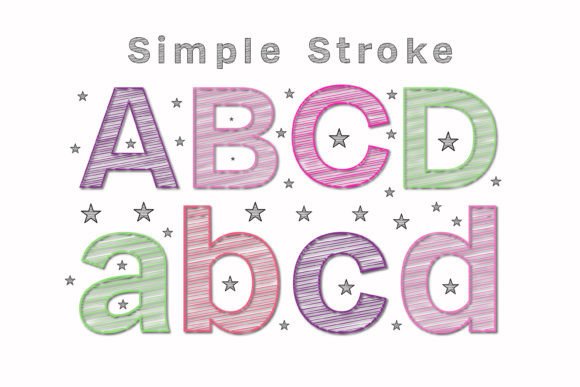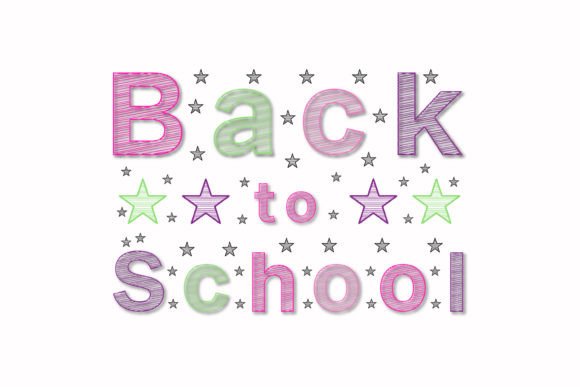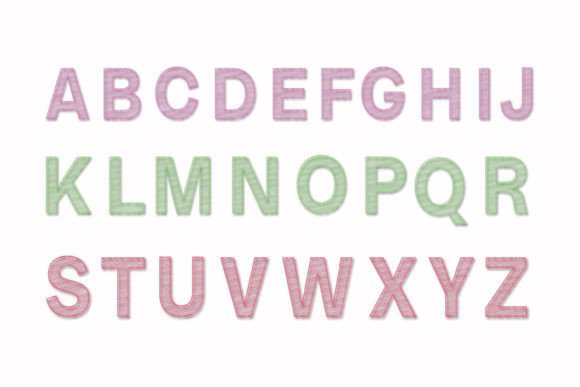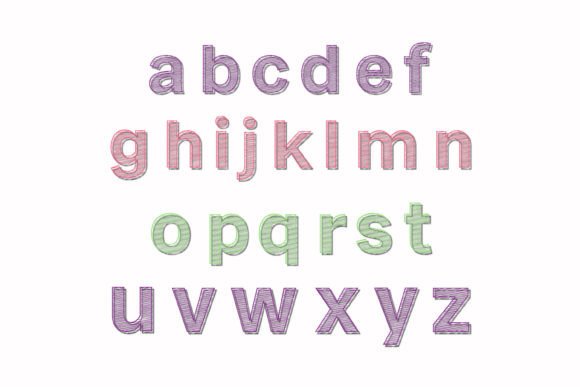
Simple Stroke Font
About the Simple Stroke Font
We are excited to introduce Simple Stroke Font, a must-have typeface for any serious designer. Introducing a vibrant splash to your creative projects, our color font embodies joy and whimsy that is bound to elevate your design endeavors. An absolute fit for branding initiatives, packaging designs, riveting logotypes, and gripping headlines, it also adds a sprinkle of charm to wedding invitations and similar creatives. Embrace and experience the transformative power of this uplifting font in your designs.
Simple Stroke Font Usage Examples
Simple Stroke Font Example